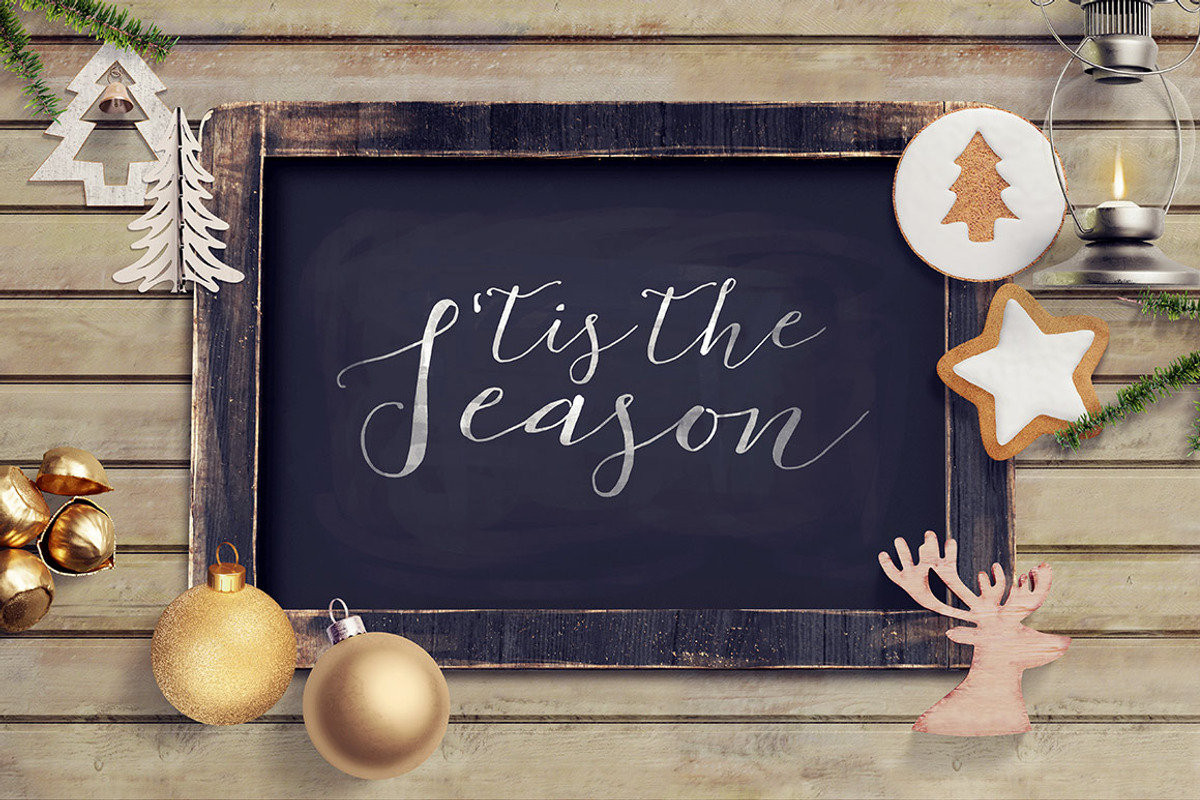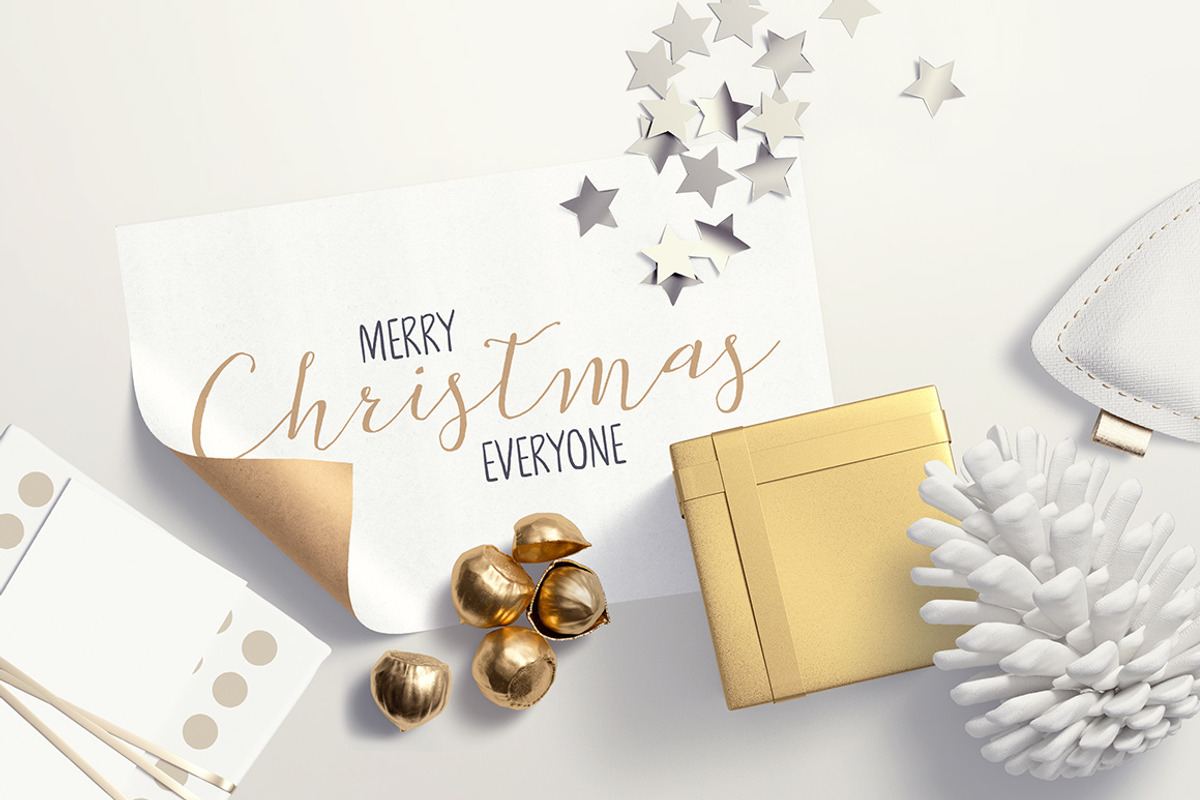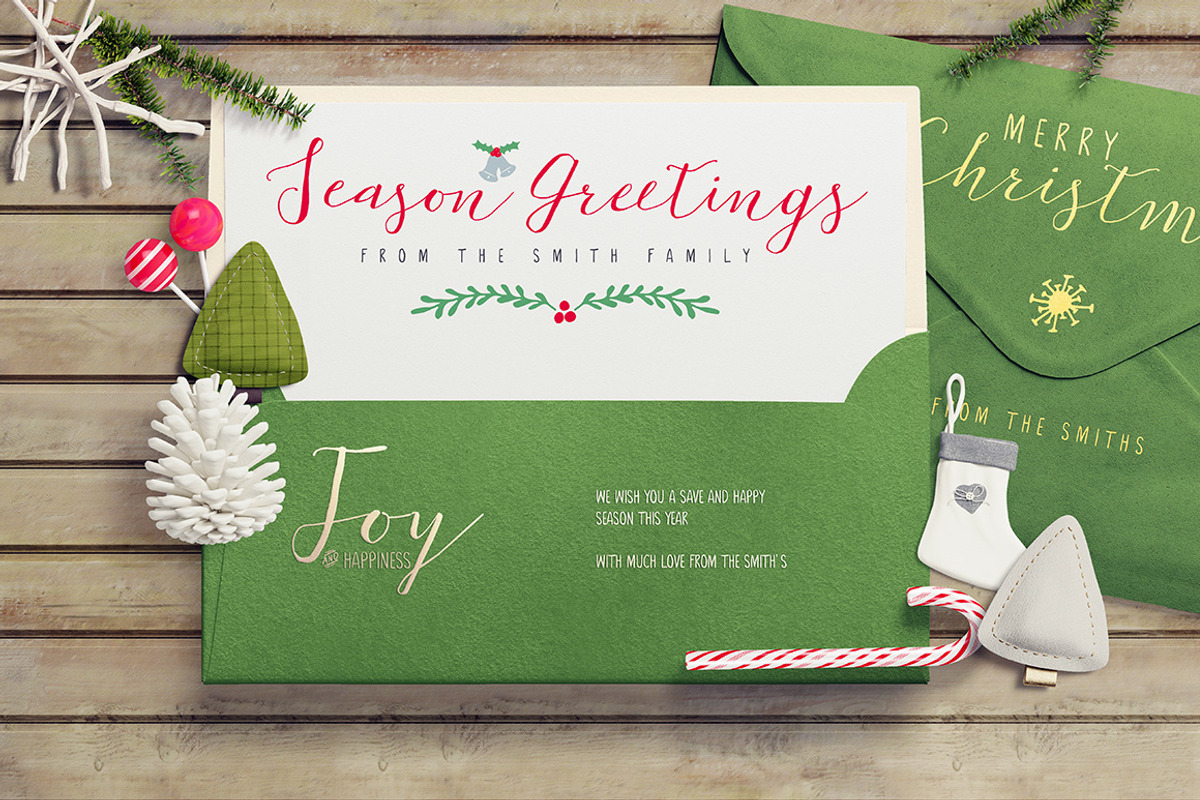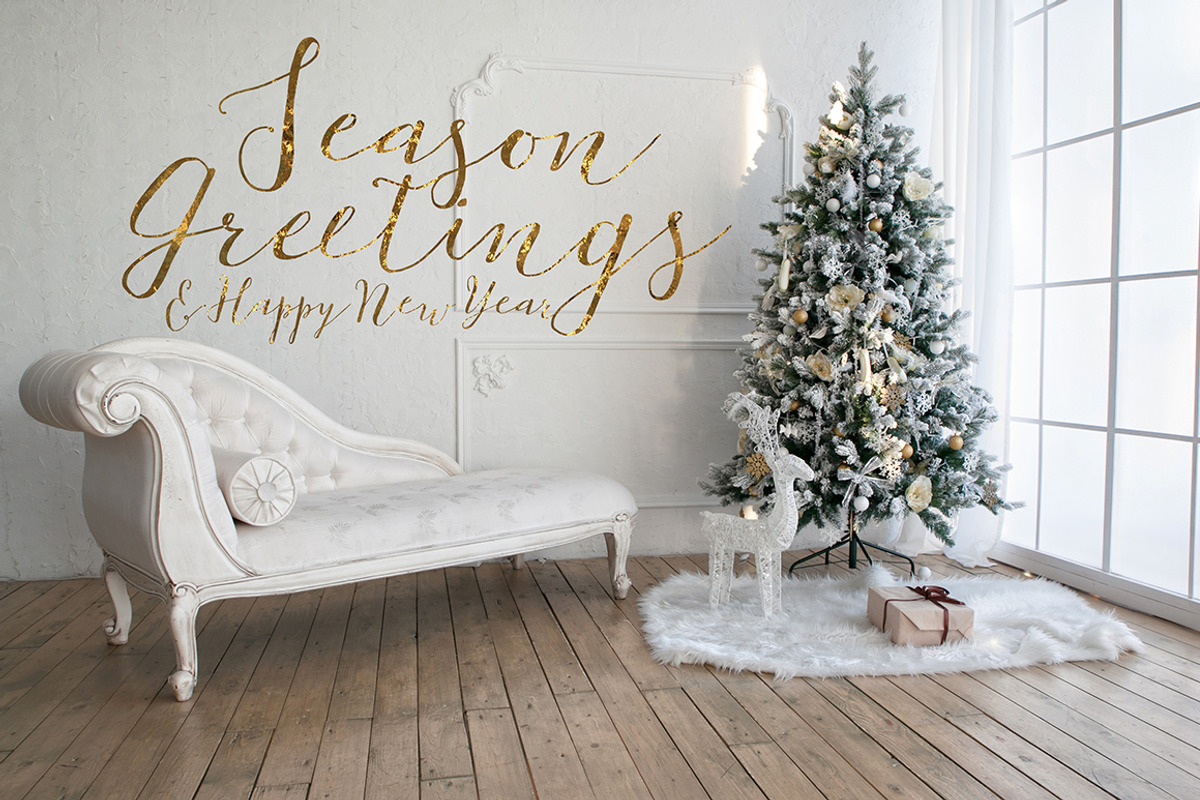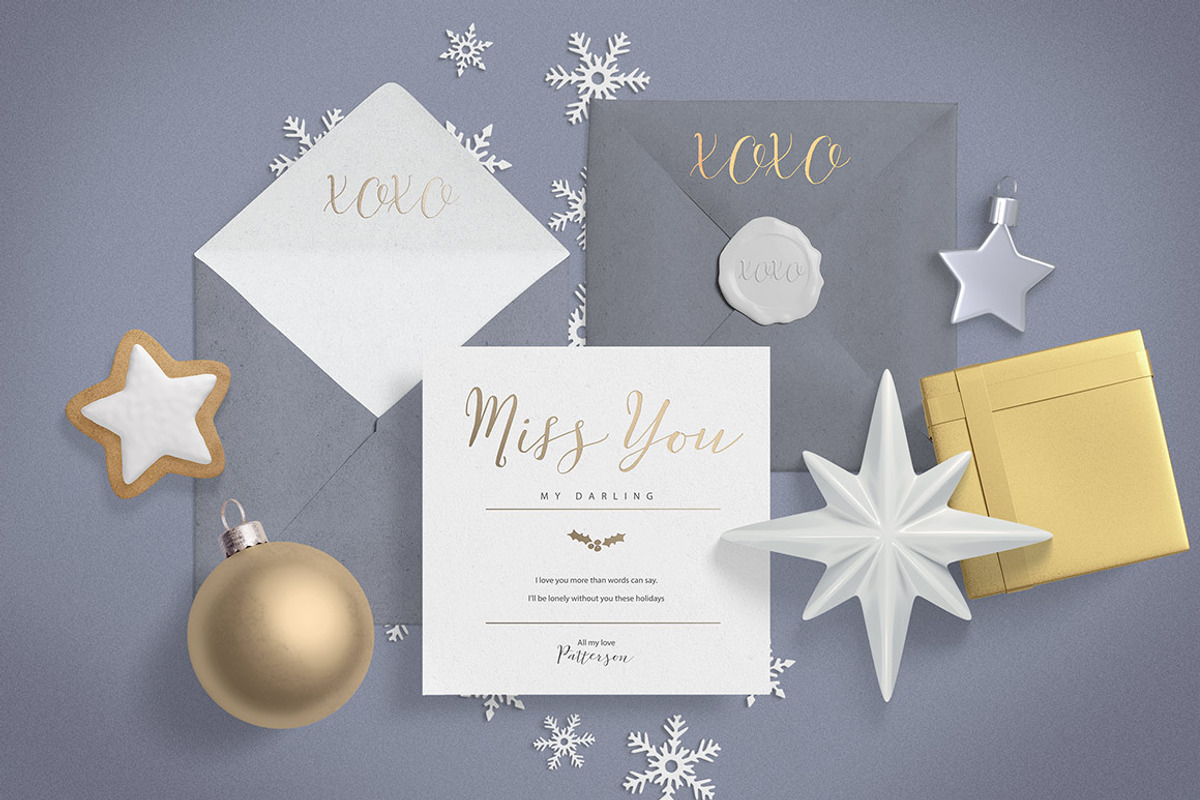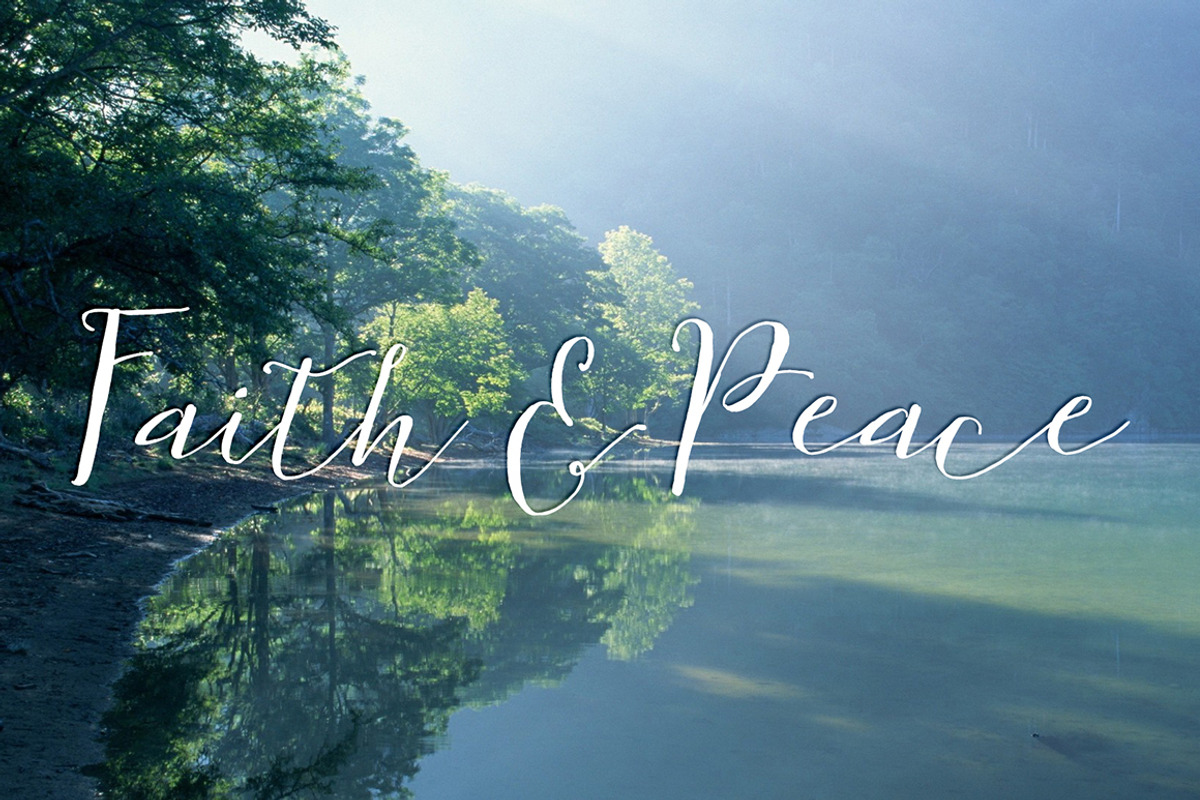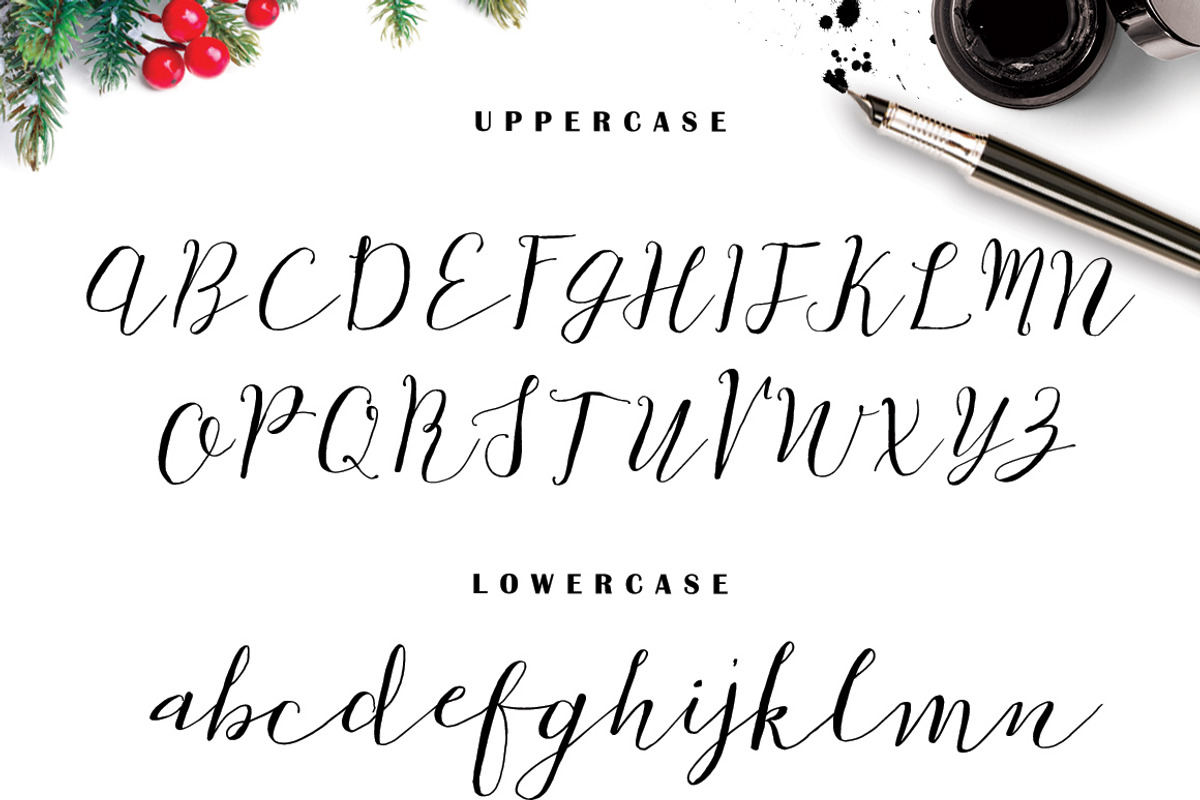
White Snowfall Script Font
White Snowfall Script Font by Creativeqube Design is a font selected for branding, posters, packaging, typography.
- White Snowfall includes Uppercase, Lowercase, Discretionary Ligatures, and numbers and symbols.
Why White Snowfall Script Font is worth a look
White Snowfall Script Font by Creativeqube Design fits naturally into Branding, posters, packaging, typography.